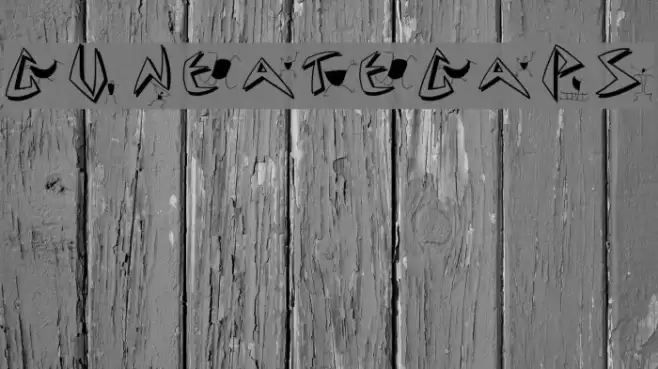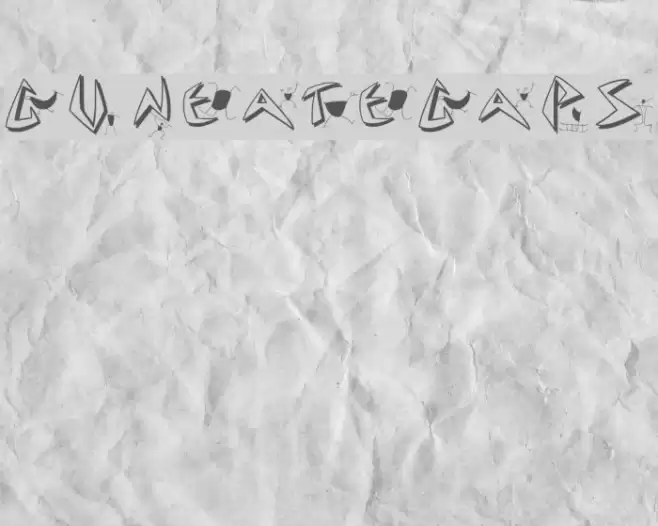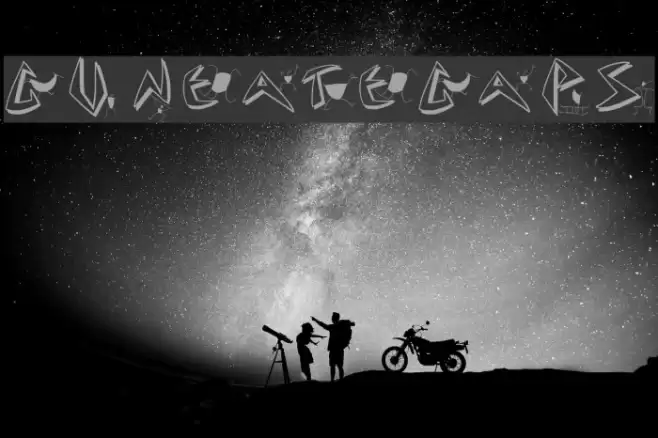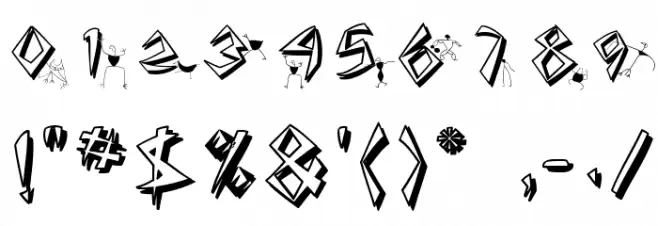
CuneateCaps Font
CuneateCaps Description
This font is a highly decorative and playful typeface that incorporates whimsical stick figures interacting with each letter and number. The characters are bold and angular, with a unique geometric style that adds a dynamic and lively feel. Each letter is accompanied by a small figure that seems to be engaging with the letterform, creating a sense of movement and storytelling. The font includes both uppercase and lowercase letters, numbers, and a selection of special characters, all maintaining the same playful theme. The overall design is eye-catching and would be perfect for projects that require a fun and creative touch.
A playful, decorative font featuring stick figures interacting with bold, angular letters from Uncategorized fonts.
- Proposed Projects: Ideal for children's books, playful branding, creative posters, and event invitations.